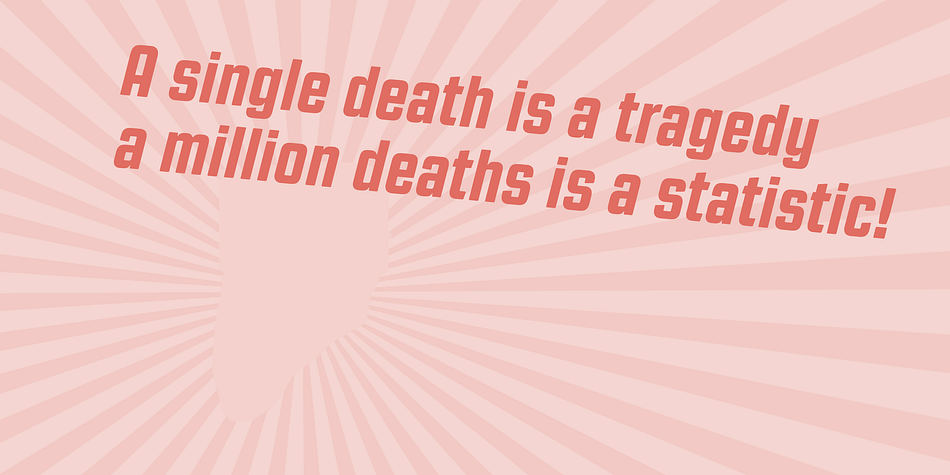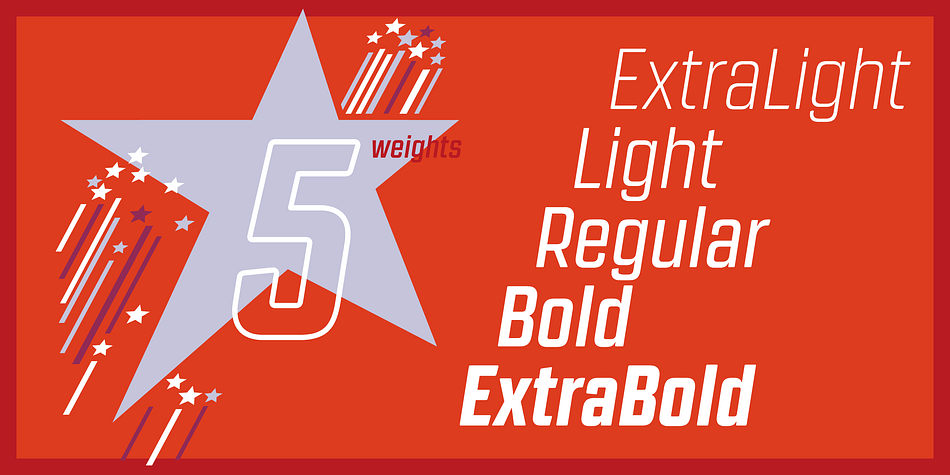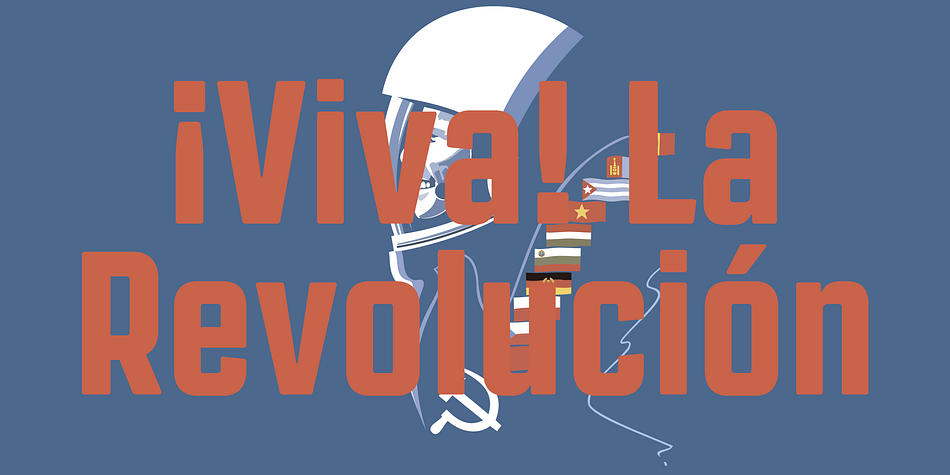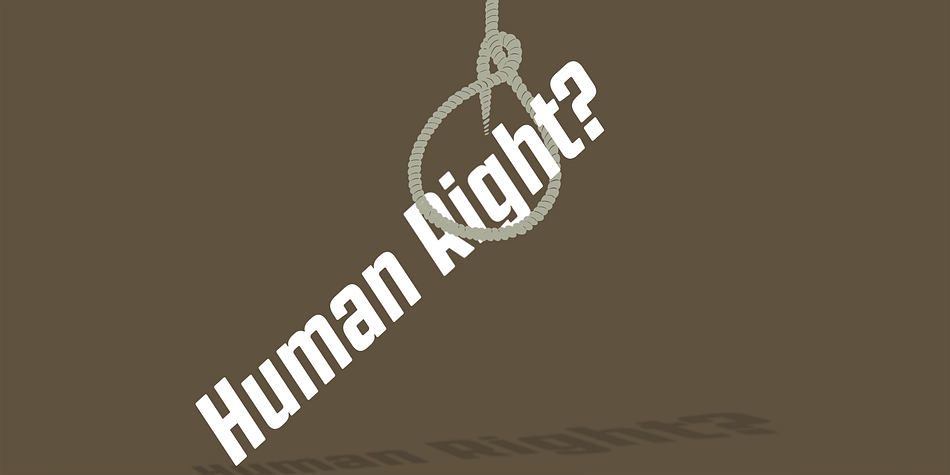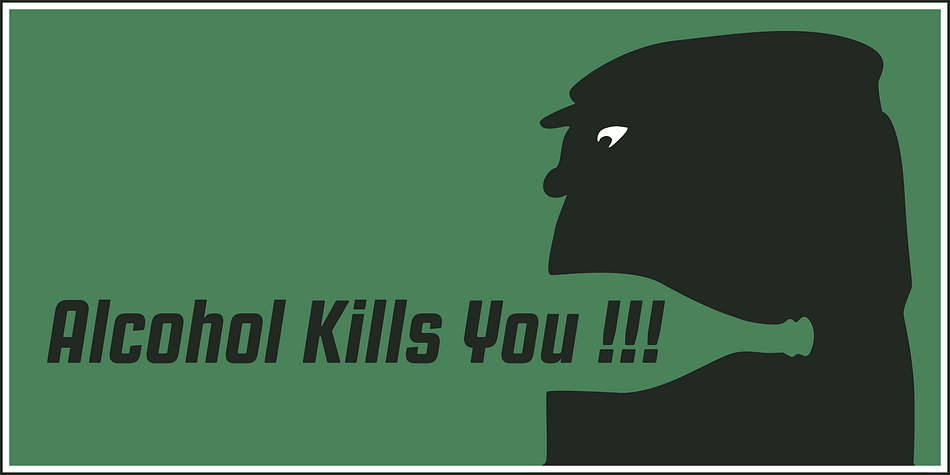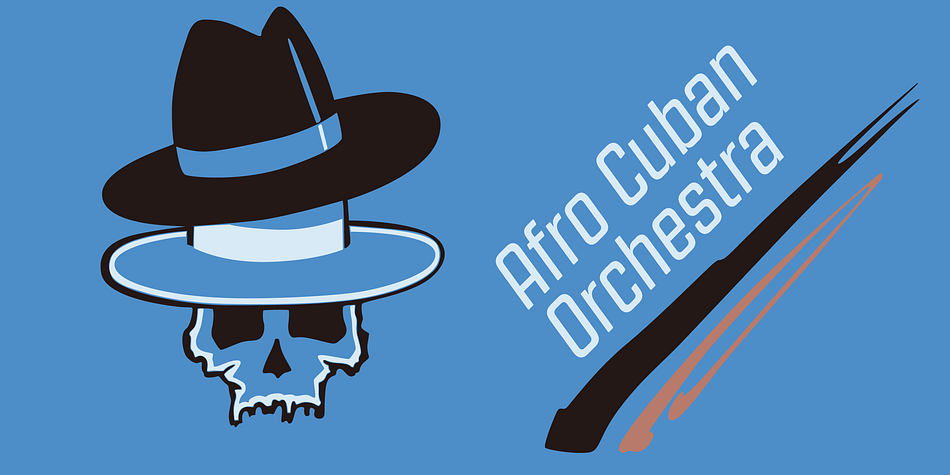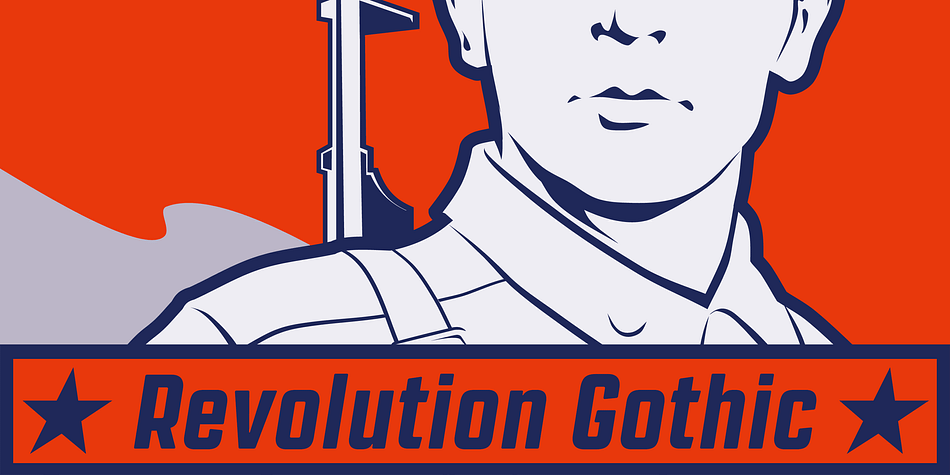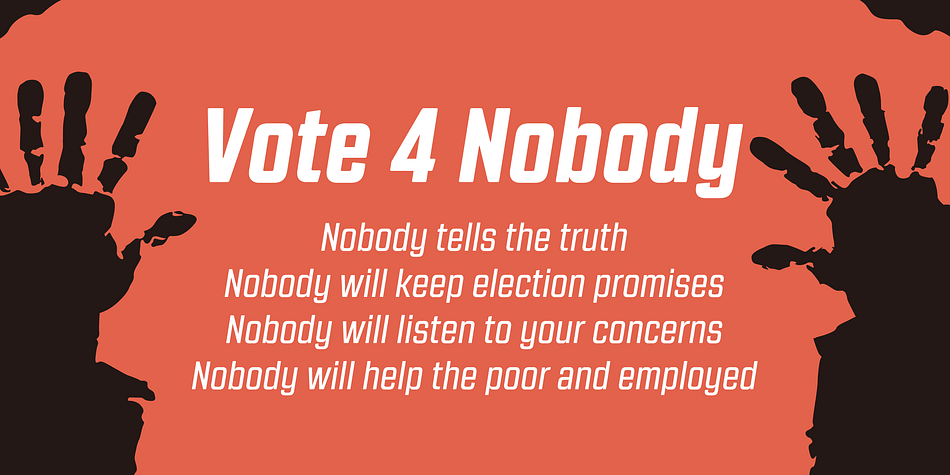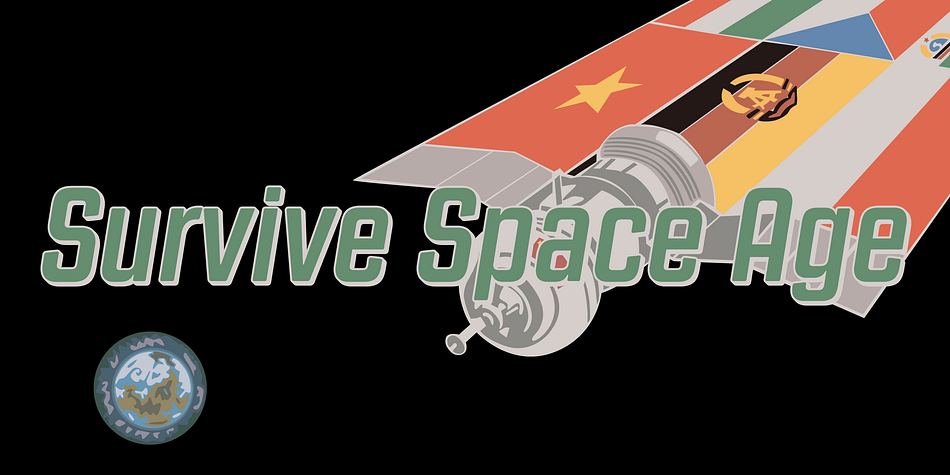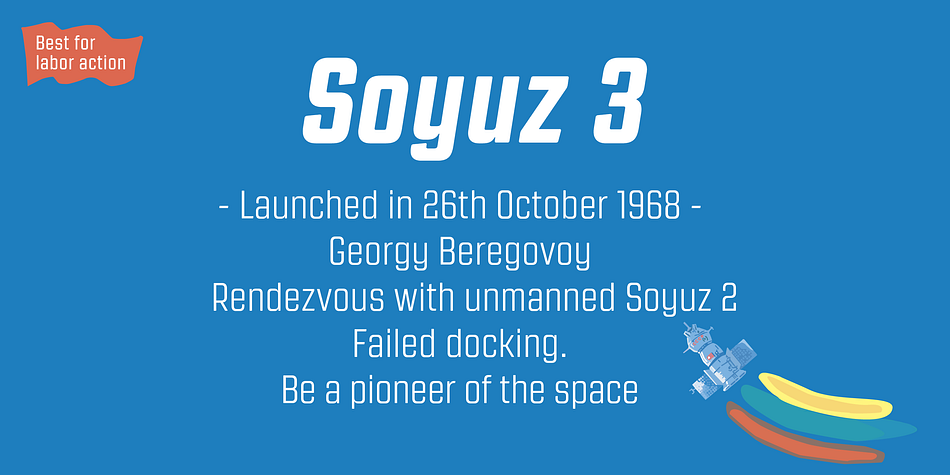
Revolution Gothic is a sans serif font family. This typeface has ten styles and was published by Dharma Type.
This font family is an arranged and extended version of PAG Revolucion released from Prop-A-Ganda type foundry in 2008. The original font is inspired by retro propaganda posters and wallpainting in Cuba from the 60s to 80s. And the original PAG Revolucion is the most popular font from Prop-A-Ganda. In redesigning this font, their detail and spacing was modified and new weights with matching slanted and also lowercase in each style were added to fit contemporary design needs. Then, Revolution Gothic became big family containing 10 styles and will be perfect family for your retrospective project.